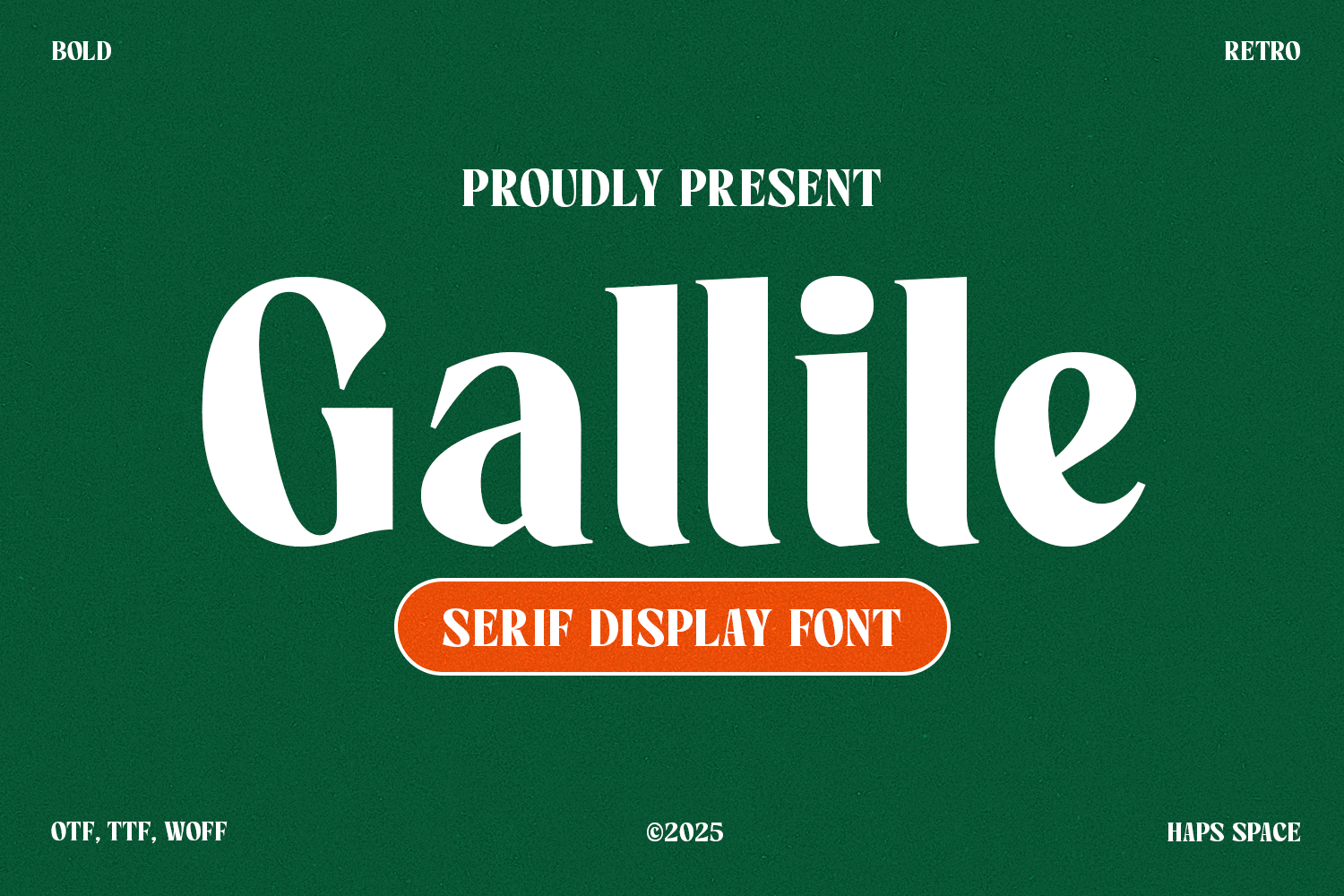
Gallile - Display Serif Font
Gallile Font is a distinctive serif display font that masterfully blends bold presence with a retro aesthetic. The font's strong letterforms and refined details create a powerful visual statement, making it an ideal asset for eye-catching headlines, editorial spreads, and creative branding. Its unique style is both timeless and contemporary, offering designers the flexibility to create projects with a professional yet artistic flair. Gallile is compatible with a wide range of applications, as it is available in OTF, TTF, and WOFF file formats.
- Unique Letterforms